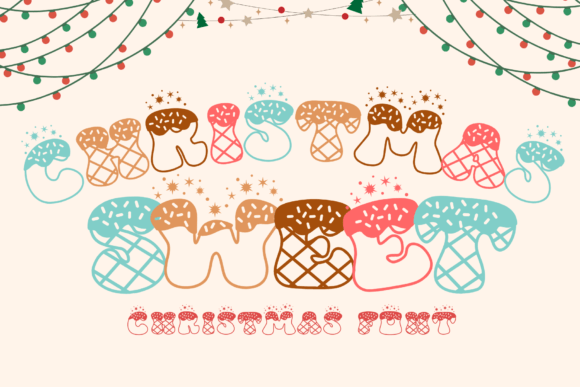
Embrace the enchantment of Christmas Sweet, a font that embodies the essence of festive joy. Its intricate details and elegant curves will transform your creative endeavors into enchanting masterpieces. Step into a winter wonderland of typography, where each letter dances with a unique charm, capturing the magic of the season. Let your imagination soar as you explore endless possibilities with Christmas Sweet.
Indulge in the vintage allure of Christmas Sweet, a font reminiscent of cherished holiday traditions. Imagine your designs adorned with this captivating typeface, evoking a sense of nostalgia and warmth. Elevate your projects with a touch of timeless elegance and create designs that resonate with the heart. Christmas Sweet is more than just a font; it's an ode to the spirit of Christmas, a celebration of love, joy, and the magic that surrounds us during this special time of year.
Unleash your creativity with Christmas Sweet, the perfect font for expressing your heartfelt messages. Its delicate strokes and playful curves add a touch of whimsy to any project, making it ideal for creating personalized cards, heartfelt letters, and enchanting invitations. Let your words dance joyously across the page, spreading warmth and cheer with every letter. Christmas Sweet is your key to unlocking a world of creative possibilities, where your imagination reigns supreme.
With Christmas Sweet, you'll embark on a journey of wonder and amazement. Transform ordinary designs into captivating works of art, whether you're crafting social media posts, eye-catching logos, or stunning website designs. Its versatile nature makes it the ultimate choice for those seeking a font that effortlessly adapts to any project, allowing you to express your unique style. Let Christmas Sweet be your creative companion, guiding you towards captivating designs that leave a lasting impression.
Immerse yourself in the festive spirit with Christmas Sweet, a font that captures the essence of joy and togetherness. Its charming characters will add a touch of enchantment to your designs, creating a magical atmosphere that draws people in. Whether you're designing Christmas cards, holiday flyers, or festive social media posts, Christmas Sweet will elevate your work to new heights, spreading cheer and goodwill wherever it goes. Let this font be your creative compass, leading you on a journey of festive inspiration.